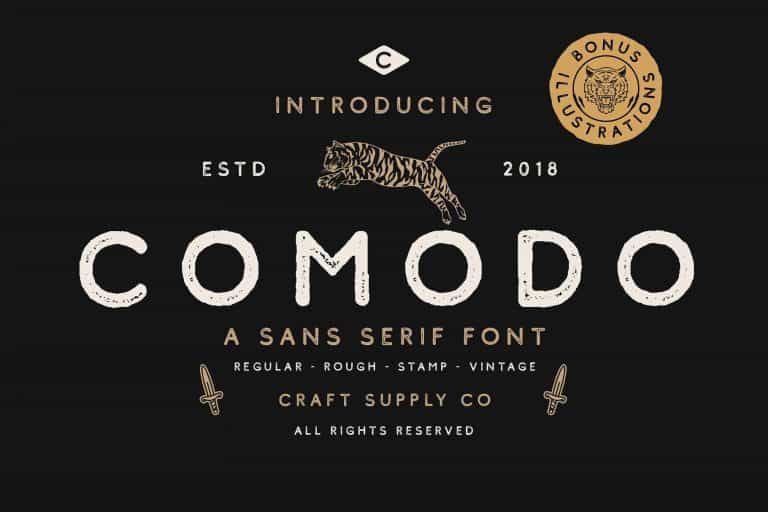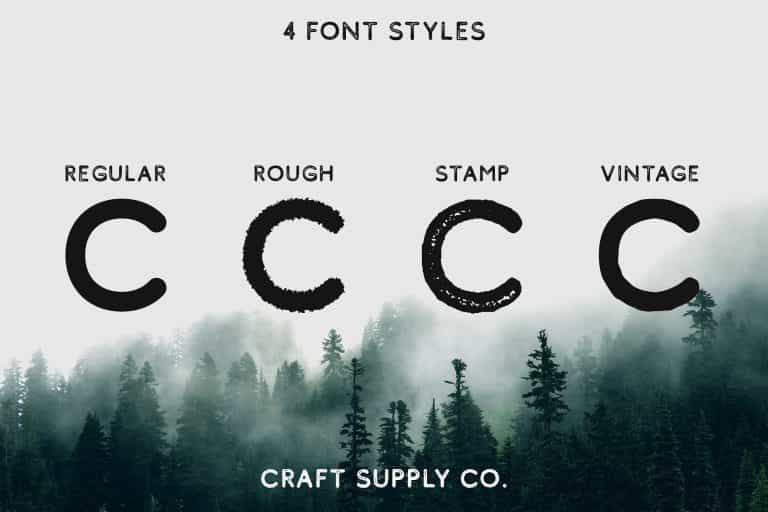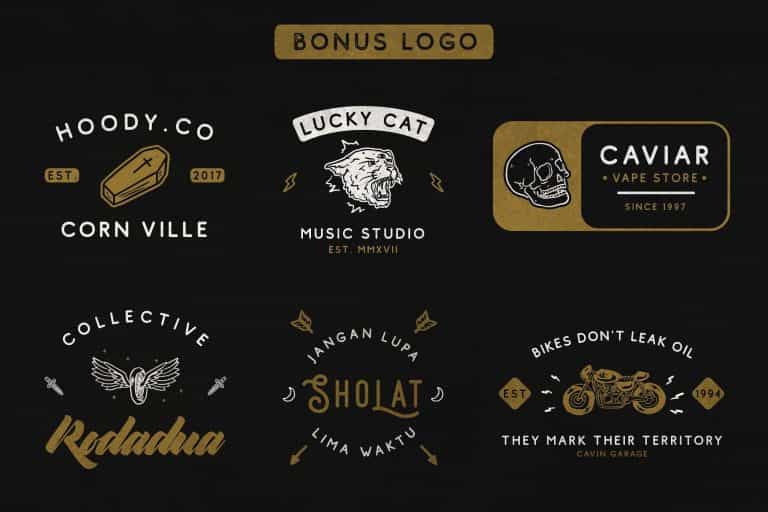
Discover Comodo Font Family, part of the Sans Serif Display Gothic Typewriter collection—a versatile and unique font perfect for adding a personal touch to your projects. Download it for free and enjoy crafting designs with style, from invitations to social media posts. This font is available exclusively for personal use, giving you the freedom to create without limits. Unlock your creativity with Comodo Font Family today!
Hi designer! Introduces a font that is special for logo. Introducing Comodo Font. Comodo + Illustrations includes 4 Style Fonts. It can be used to create almost all types of design projects like print materials. Just use your imagination and some graphic design set in Extras, your project will become more alive and look great than ever with one of the Comodo Font.